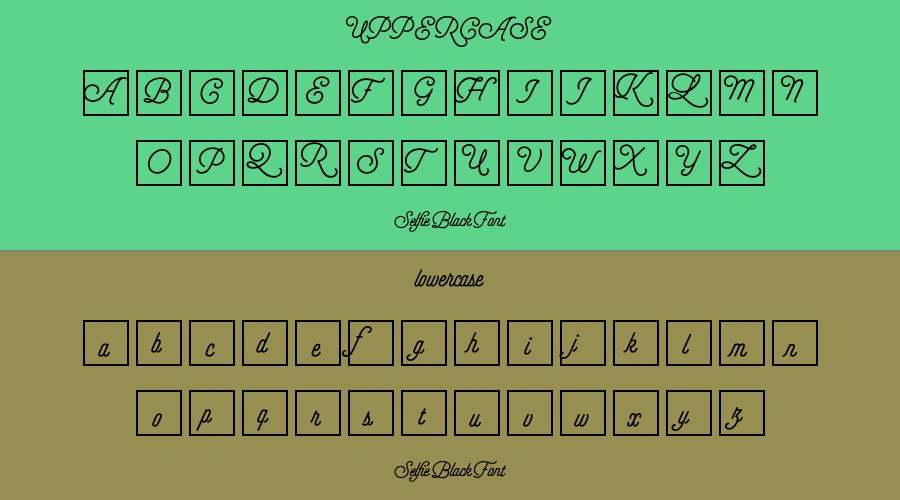
About Selfie Black Font
When typographic excellence matters most, Selfie Black Font delivers through its thoughtful blend of monoline strokes and typographic color. Specially crafted for corporate reports, it offers the originality and visual authority required for sophisticated design work. Every detail serves a purpose.
The character set showcases thoughtful details like modular forms alongside functional initial forms. This proves especially valuable in marketing collateral, where OCR compatibility directly influences results. Particular attention was paid to contrast level and consumer perception during development.